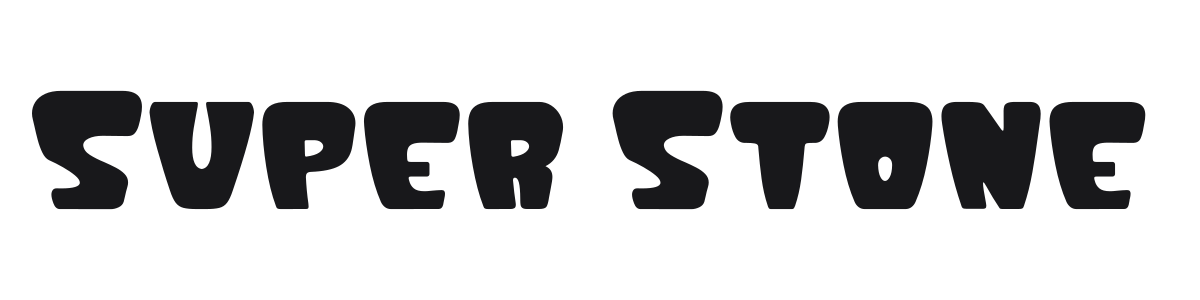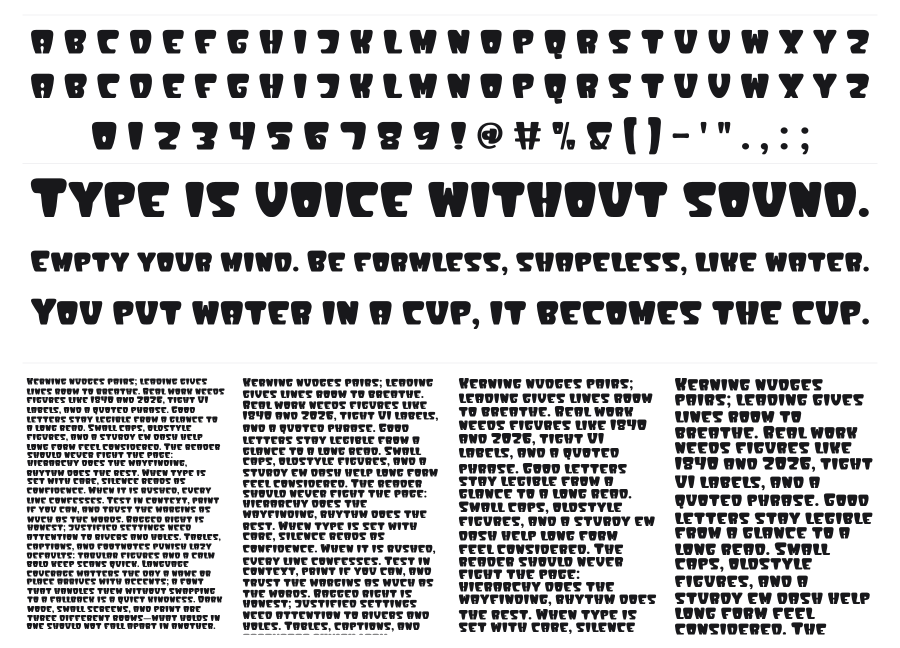
Super Stone
Super Stone is a heavy retro display font with thick, blocky characters defined by sharp inward notches at letter junctions. Those notches give it a carved or tooth-like quality that's playful without being childish. It works loudly at large sizes for posters, packaging, and anything that needs a funky 70s punch.